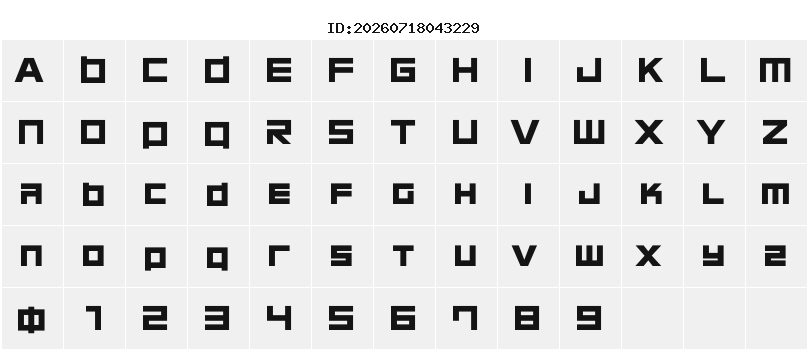
Chubu 08 Normal Preview
• Font Name: Chubu 08 Normal
• Full Font Name: Chubu 08 Normal
About Chubu 08 Normal.ttf
Chubu 08 Normal.ttf is a modern, elegant sans-serif font designed for ultimate readability and visual harmony. Perfect for branding, headlines, web design, and print materials.